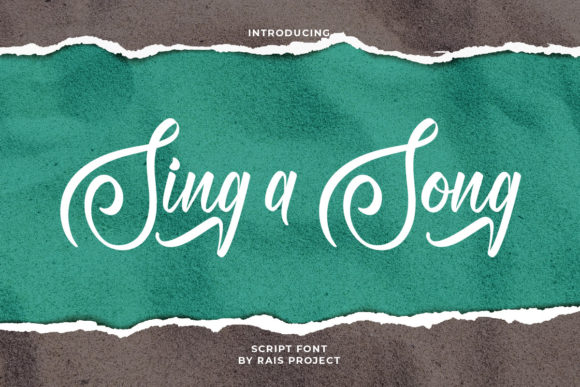
Behold the Enchanting Sing A Song Font: A Symphony of Elegance and Harmony for Your Designs
In a world brimming with visual cacophony, where fonts often clamor for attention without substance, allow us to introduce you to Sing A Song – a font that transcends the ordinary, a font that serenades your designs with its ethereal beauty and captivating charm. Crafted with meticulous precision, Sing A Song is a script font that evokes the timeless elegance of a handwritten love letter, the delicate touch of a maestro's baton, and the soaring melodies of a symphony.
Immerse yourself in the world of Sing A Song, where letters dance across the page like musical notes, each character a perfectly formed element of a larger harmony. Its graceful curves and sweeping flourishes lend an air of sophistication to any project, whether it's a wedding invitation, a heartfelt letter, or a stunning logo.
Unleash the Power of Sing A Song: A Font That Speaks to the Soul
With Sing A Song, you hold the key to unlocking a world of creative possibilities. Its versatility knows no bounds – from elegant wedding stationery that whispers of romance to eye-catching social media graphics that demand attention, Sing A Song adapts seamlessly to your vision, adding a touch of magic to every creation.
Step into the spotlight with Sing A Song, a font that commands attention without overpowering your message. Its delicate strokes and understated charm make it the perfect choice for those seeking a font that complements their designs rather than overshadowing them. Let Sing A Song be the supporting actor that elevates your words, guiding your audience's eyes across the page with its effortless grace.
Let Your Designs Sing with Sing A Song: A Journey Through Creative Expression
With Sing A Song as your creative companion, you embark on a journey of artistic exploration, where your imagination knows no limits. Whether you're a seasoned designer seeking a touch of elegance or a novice just beginning your creative adventure, Sing A Song welcomes you with open arms. Its user-friendly nature makes it accessible to all, inviting you to experiment with different styles and techniques.
Experience the Ecstasy of Sing A Song: The Perfect Font for Music Lovers
For those with a passion for music, Sing A Song is more than just a font – it's a symphony of visual expression. Let the curves of each letter mimic the ebb and flow of a melody, the flourishes acting as embellishments that add depth and character to your musical creations. Sing A Song transforms your lyrics into visual masterpieces, capturing the essence of your music and amplifying its impact on your audience.
Beyond Its Beauty: The Technical Brilliance of Sing A Song
Sing A Song is not just a pretty face; it's a meticulously crafted font that ensures flawless performance across a wide range of applications. Its PUA encoding allows for effortless access to glyphs and swashes, giving you the freedom to explore endless creative possibilities without compromising on quality.